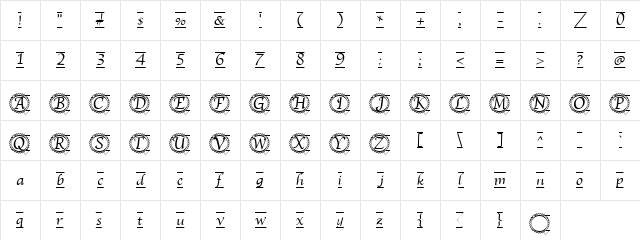
LD Award Regular
Design Context for LD Award
LD Award is a composed and adaptable typeface that performs quietly and consistently across a wide range of design contexts.